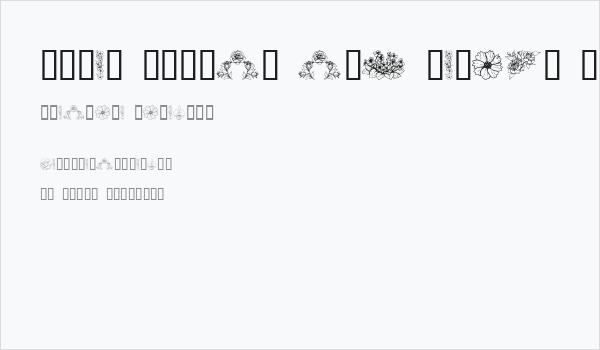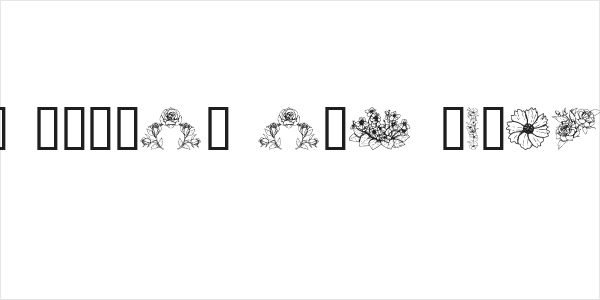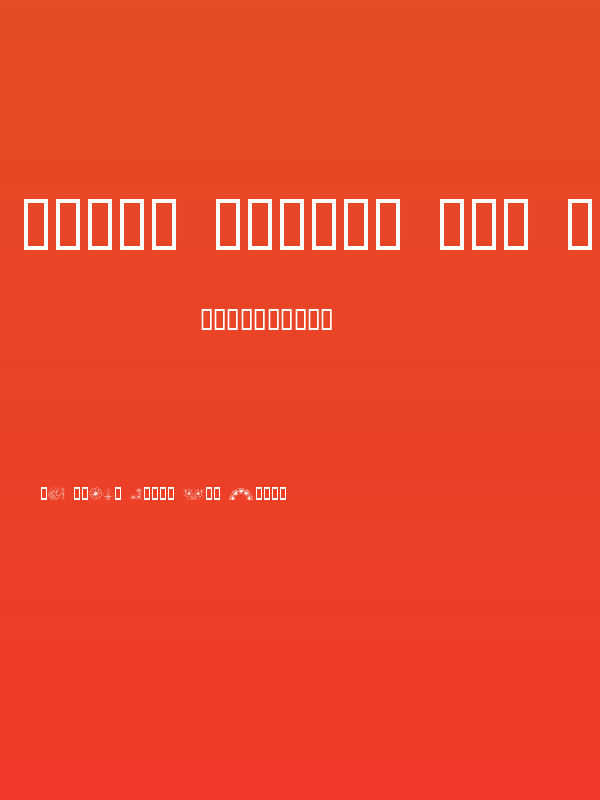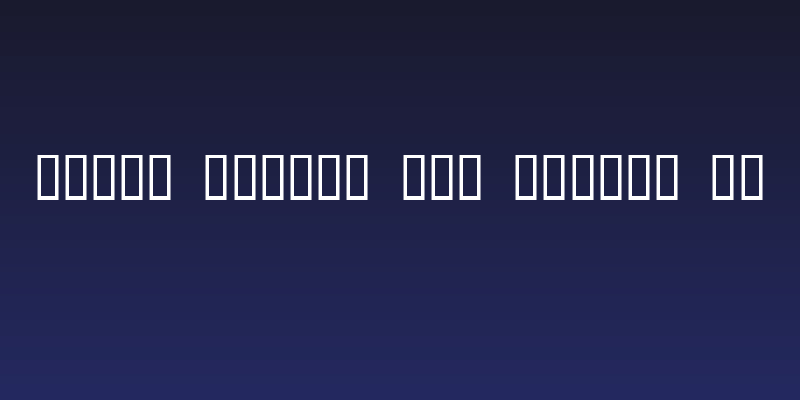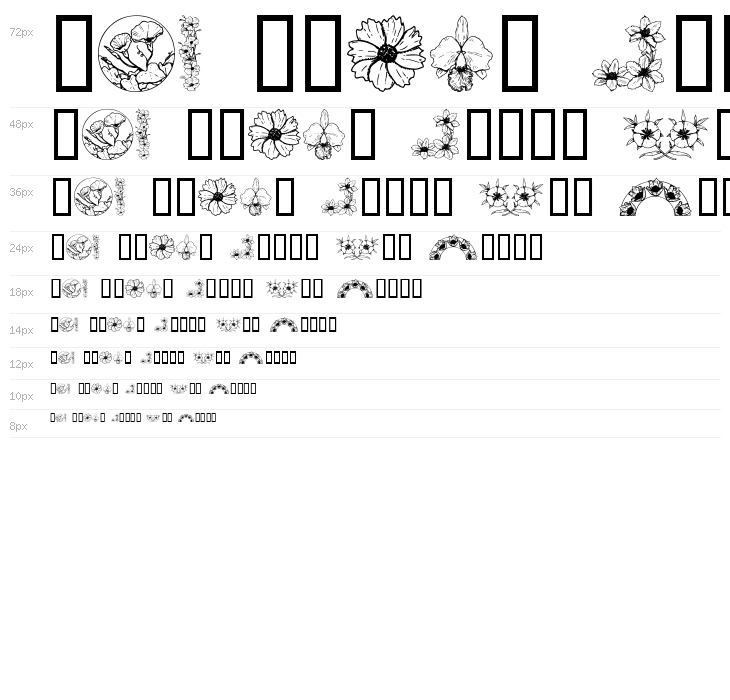
Dover Floral and Design II Font
Dover Floral and Design II Description
This decorative font features intricate floral designs that replace traditional letterforms, creating a unique and artistic appearance. Each character is adorned with detailed botanical illustrations, making it ideal for projects that require a touch of elegance and nature-inspired aesthetics. The font's ornate style is perfect for invitations, greeting cards, and other creative projects where a decorative and sophisticated look is desired. The floral elements are meticulously crafted, offering a harmonious blend of typography and art.
| Use Case | Logos, Artistic projects, Invitations |
| Proposed Projects | Ideal for wedding invitations, greeting cards, artistic posters, and nature-themed branding. |